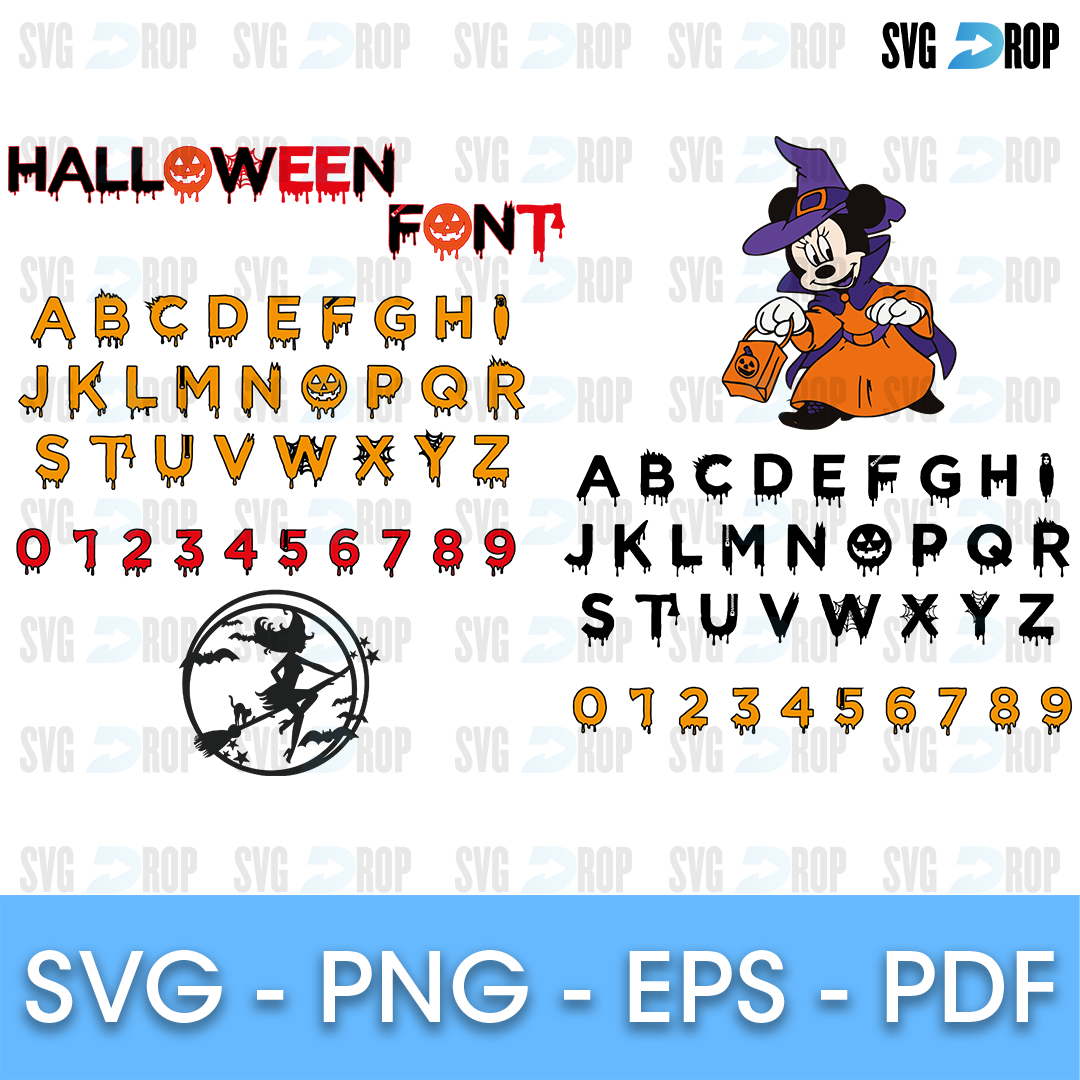
Halloween Font Minnie Witch Alphabet SVG
✨ A Halloween alphabet set: orange and black spooky letters A to Z and numbers 0 to 9, a Halloween Font title, a witch on a broom by the moon and Minnie Mouse in a witch costume.